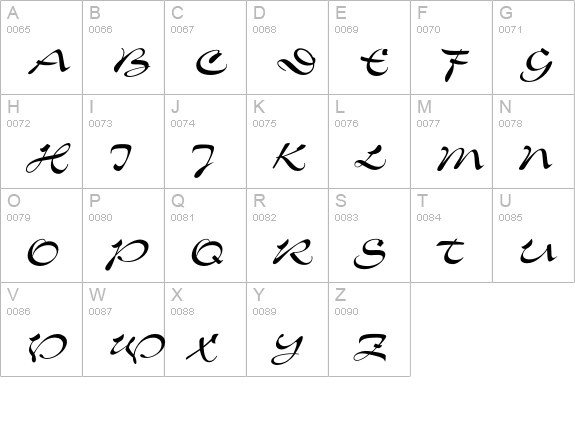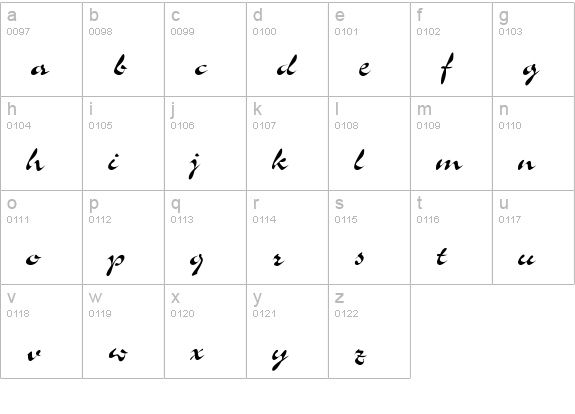
KeyWest Font Details
Introducing KeyWest font, a beautifully designed typeface that embodies the essence of coastal charm and tropical vibes. This font is the perfect blend of elegance and playfulness, making it suitable for a wide range of creative projects. KeyWest font features unique and eye-catching letterforms, with a delightful balance of curvatures and straight lines. It captures the carefree spirit of a coastal getaway, evoking images of palm trees swaying in the breeze and the soothing sound of waves crashing on the shore. What makes KeyWest font even more enticing is that it is freely available to download at FontsMarket.com. Yes, you heard it right – this stunning font can be yours without any cost. Whether you're a professional designer looking to add a touch of tropical flair to your work or an enthusiast seeking a font that exudes vacation vibes, KeyWest font is the perfect choice. With its versatility and unlimited potential, KeyWest font is suitable for a wide range of design projects, including logos, branding, invitations, posters, packaging, and so much more. Its smooth and clean lines ensure legibility even at smaller sizes, while its playful nature adds a touch of personality to any composition. So why wait? Embrace the island spirit and infuse your designs with the captivating beauty of KeyWest font. Download it for free at FontsMarket.com and let your creativity soar to new heights.